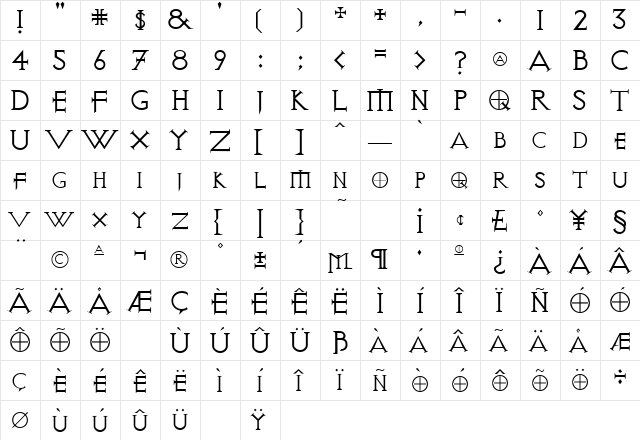
Visitation Regular Free Font
Visitation Regular
Design Context for Visitation
Visitation is a composed and adaptable typeface that performs quietly and consistently across a wide range of design contexts.